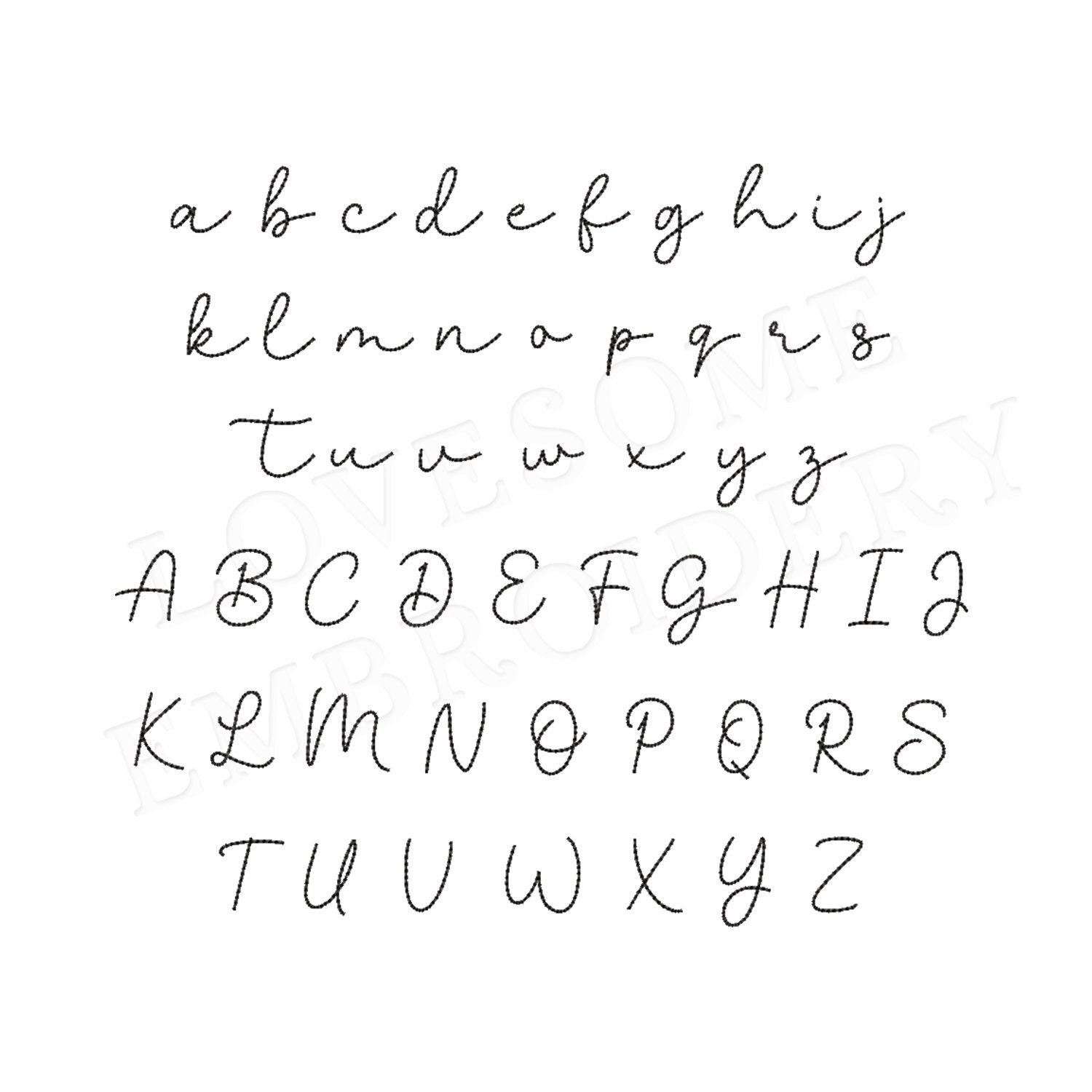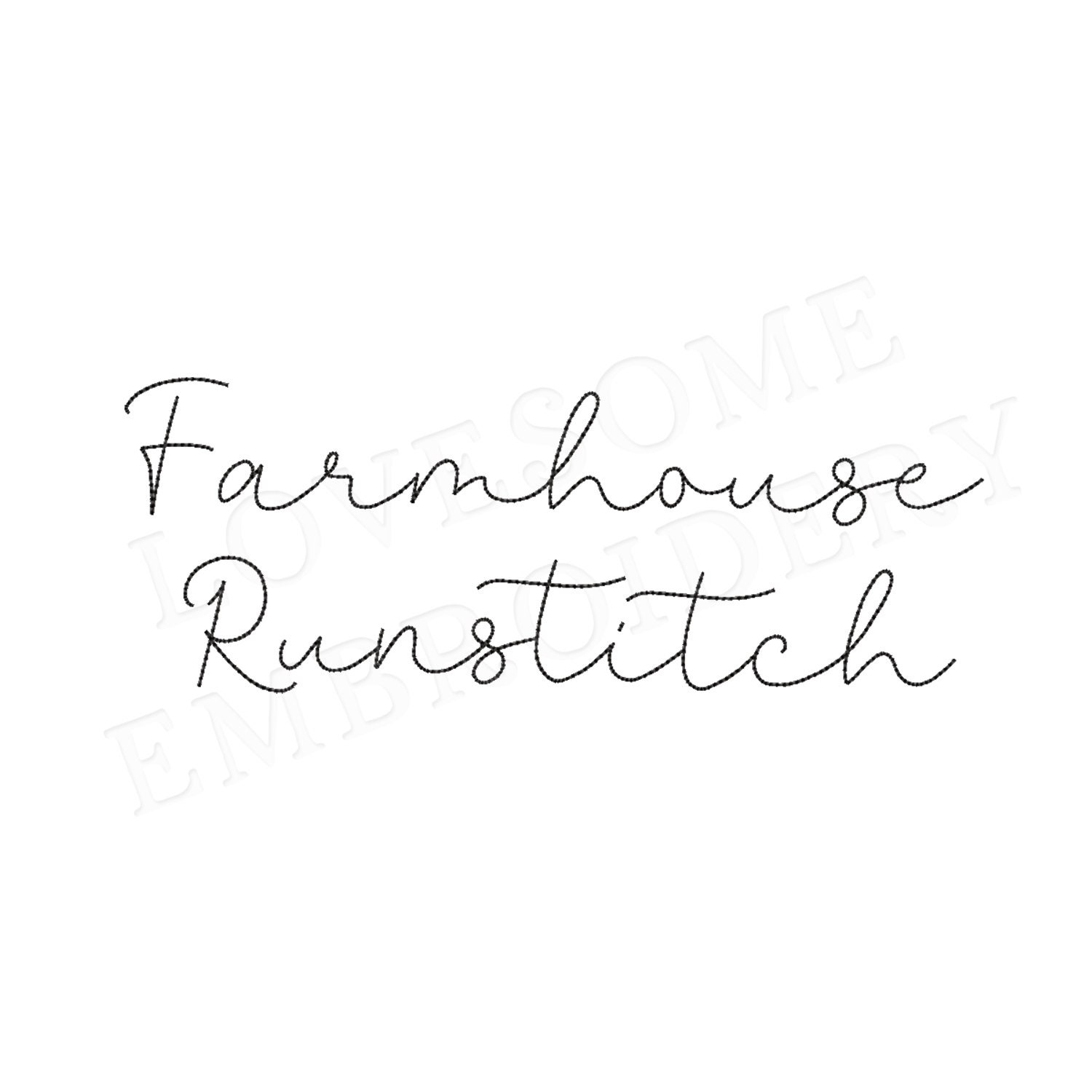
Farmhouse Script 1.5inch Bean Stitch Font A-Z, Cursive Run Stitch Font, Machine Embroidery Digital Download | Lovesome Design
This listing features a machine embroidery font set which includes run stitch (bean stitch) embroidery files of 26 uppercase and 26 lowercase letters in 1.5inch size. (For the whole set, pls see the listing images.)